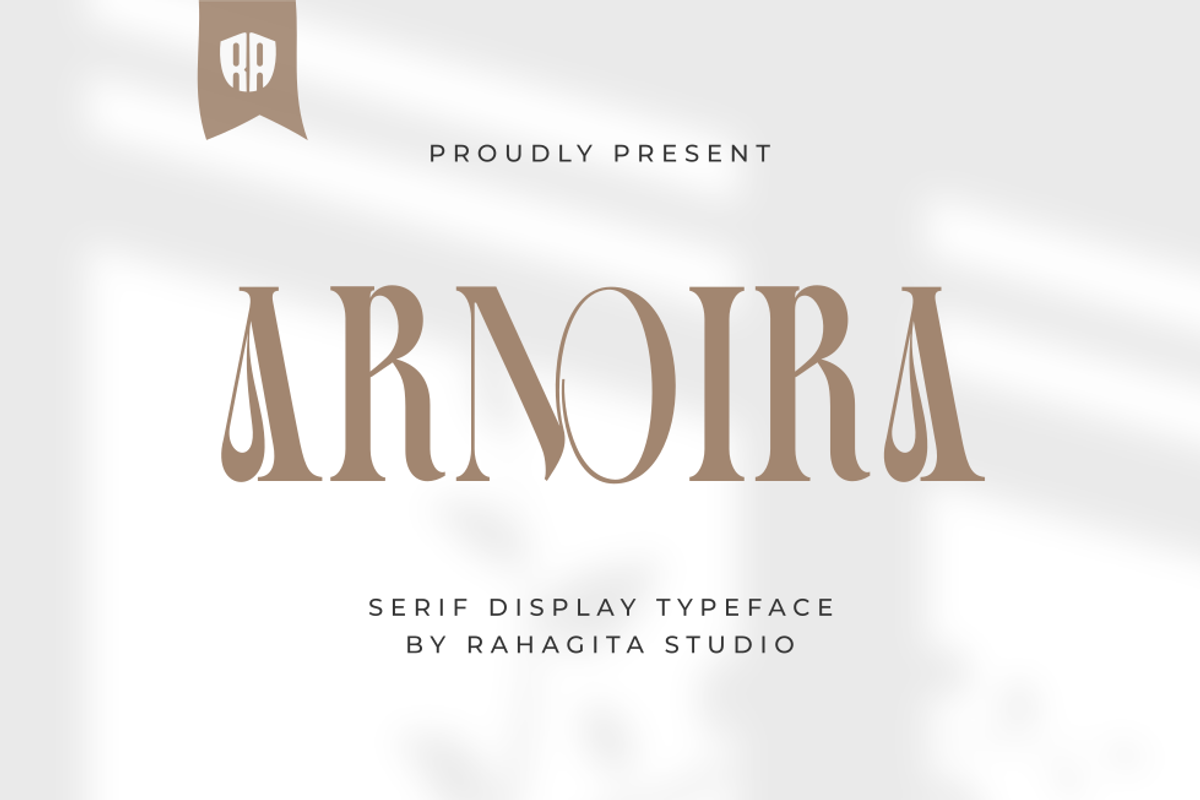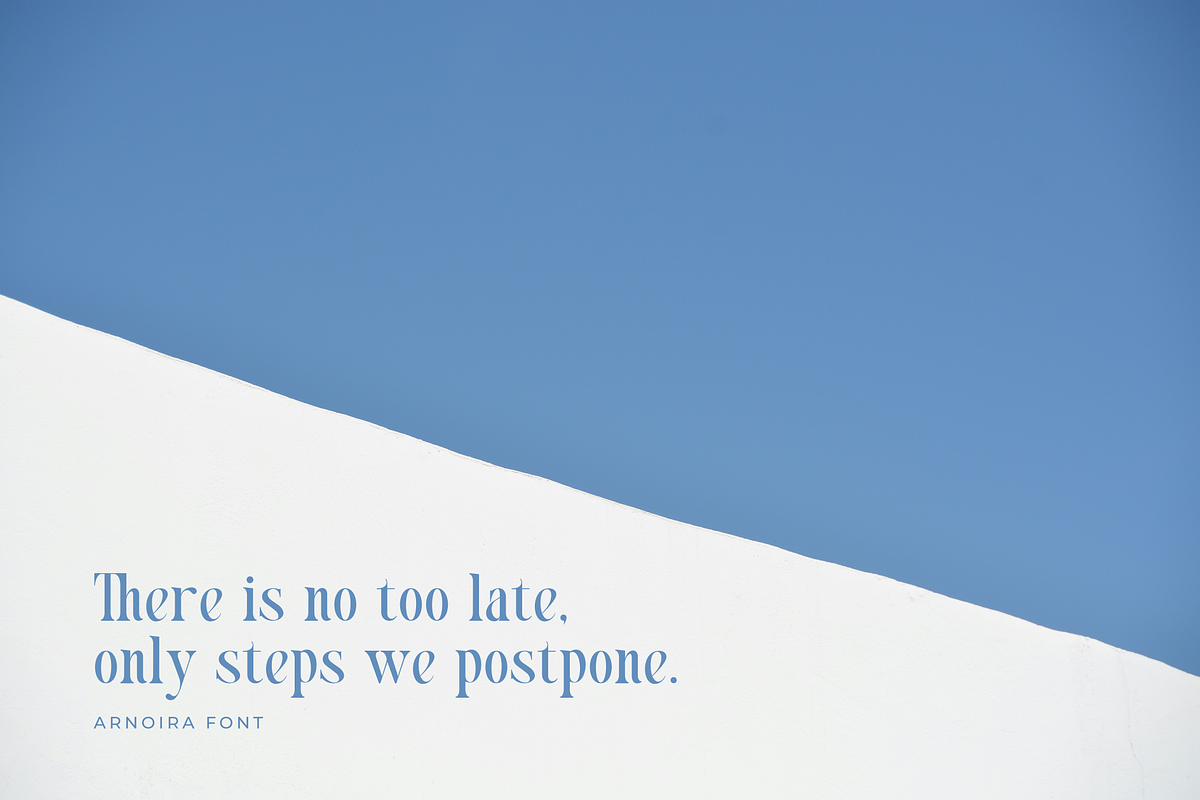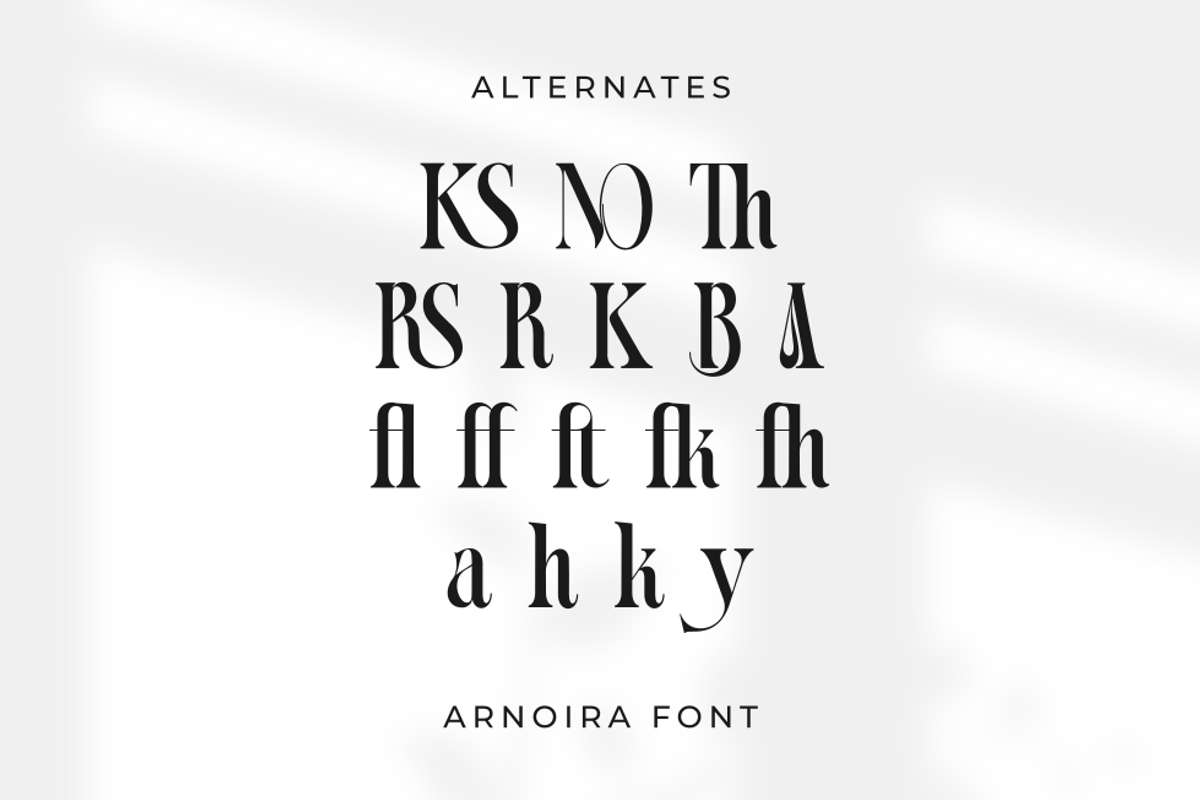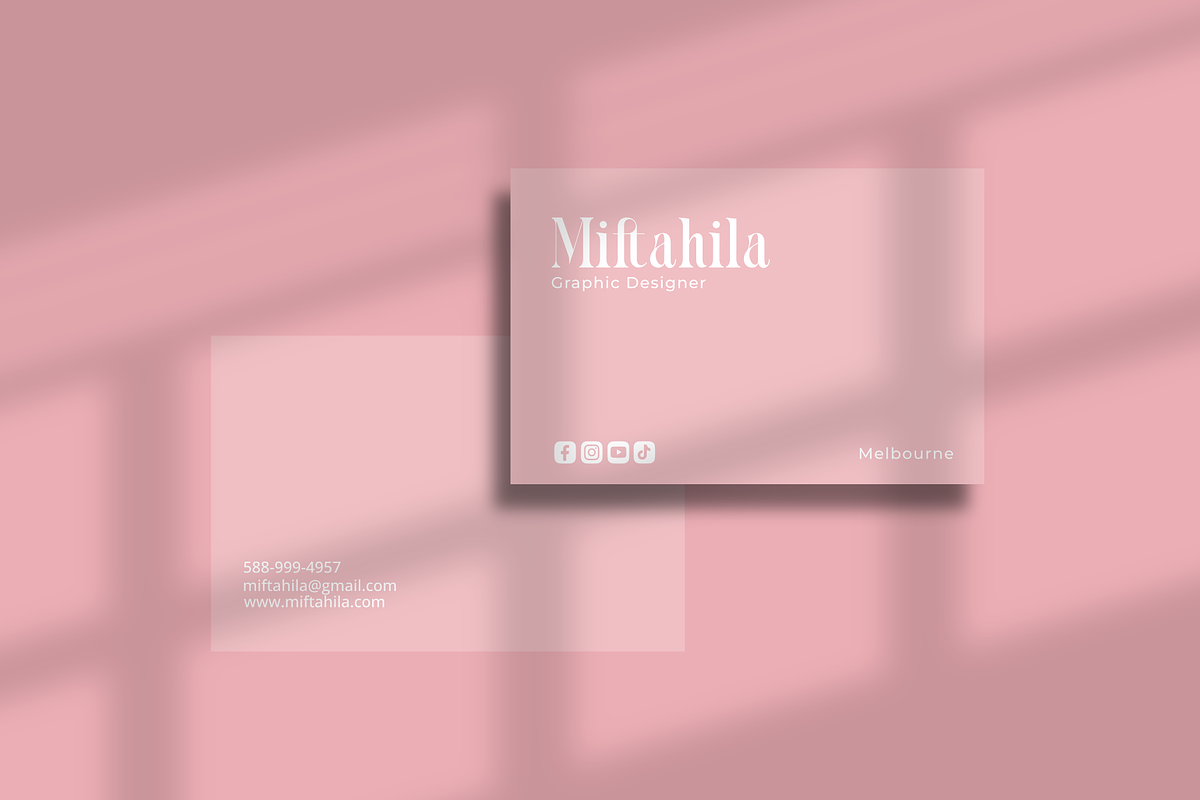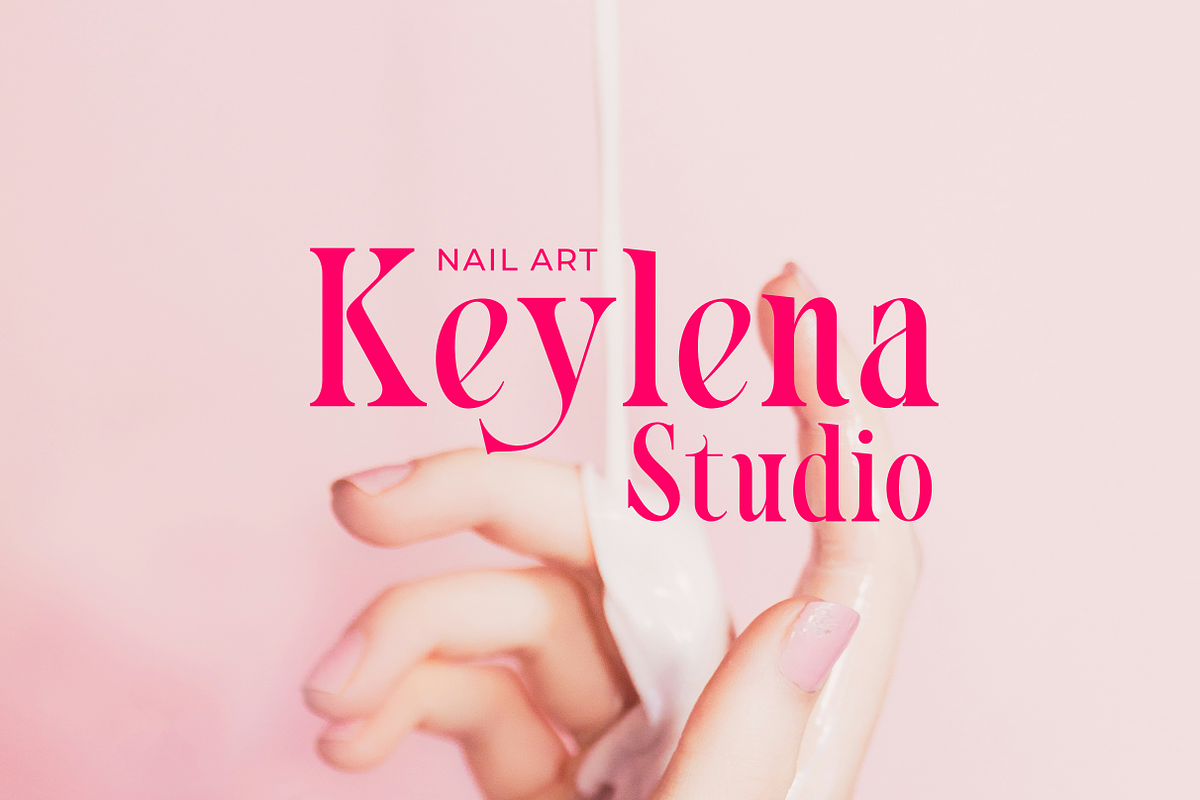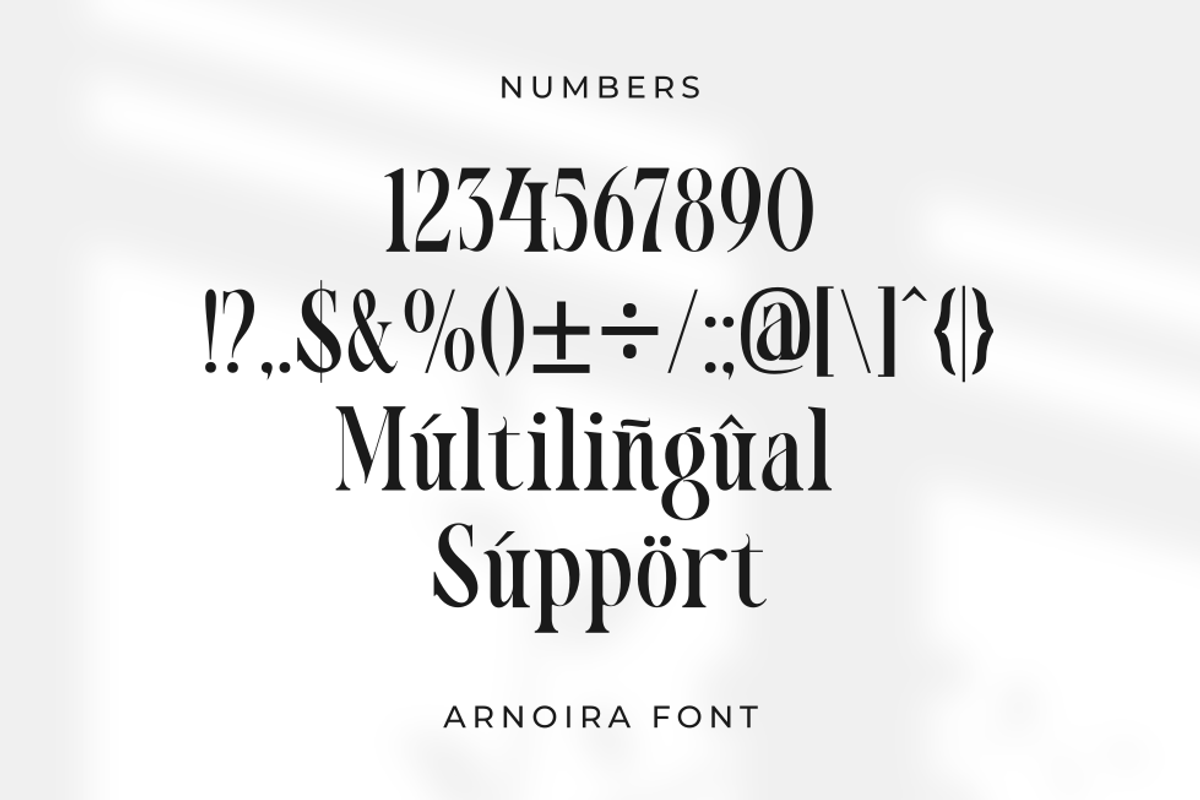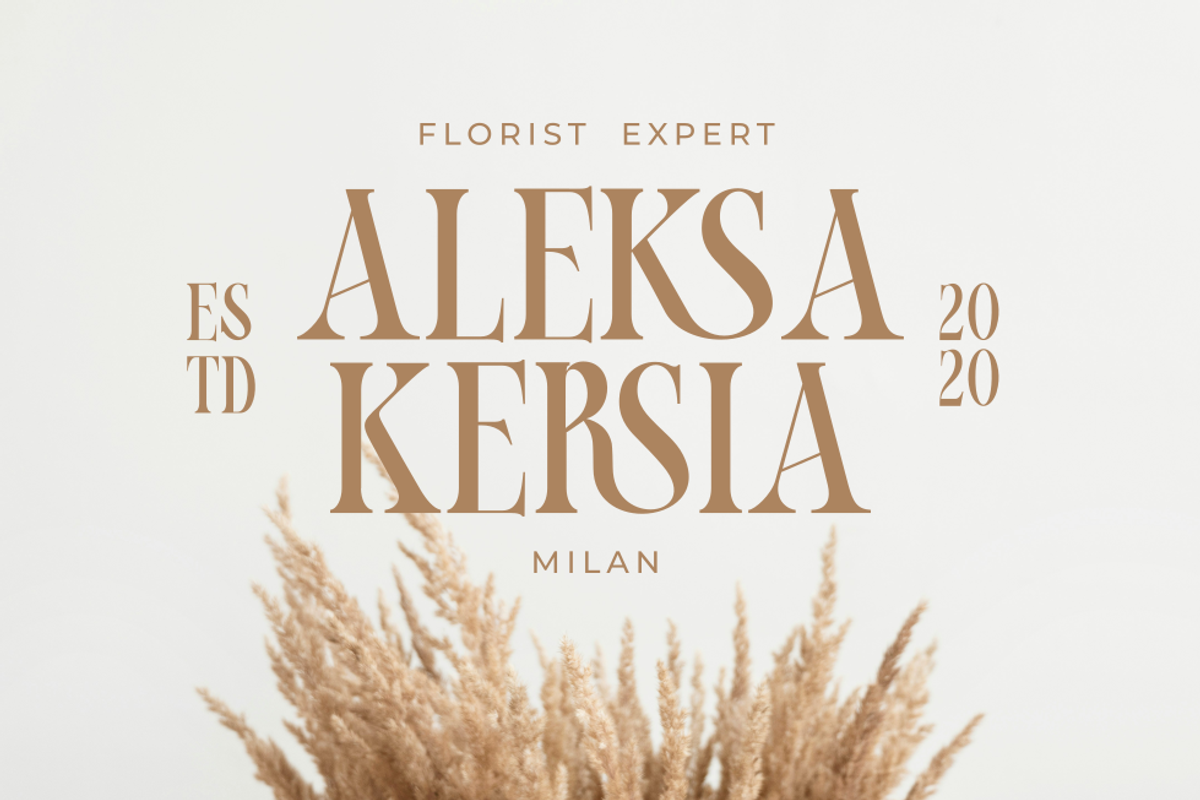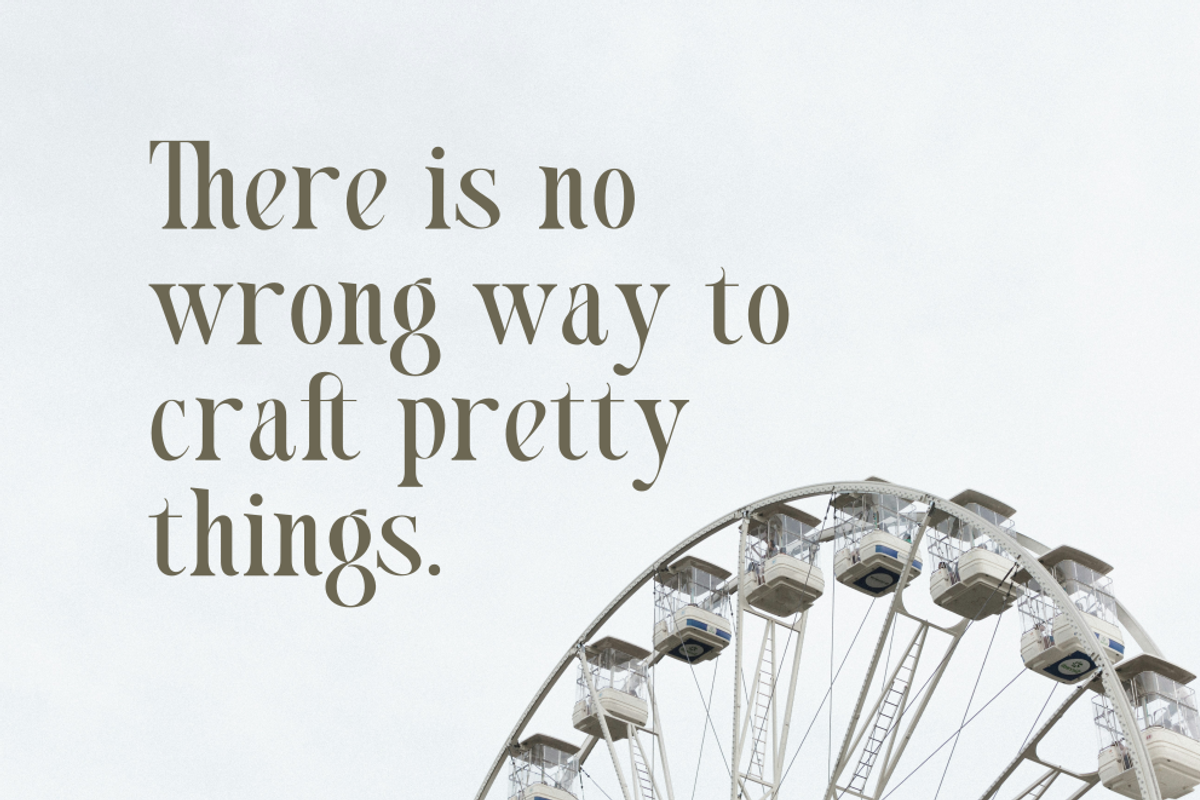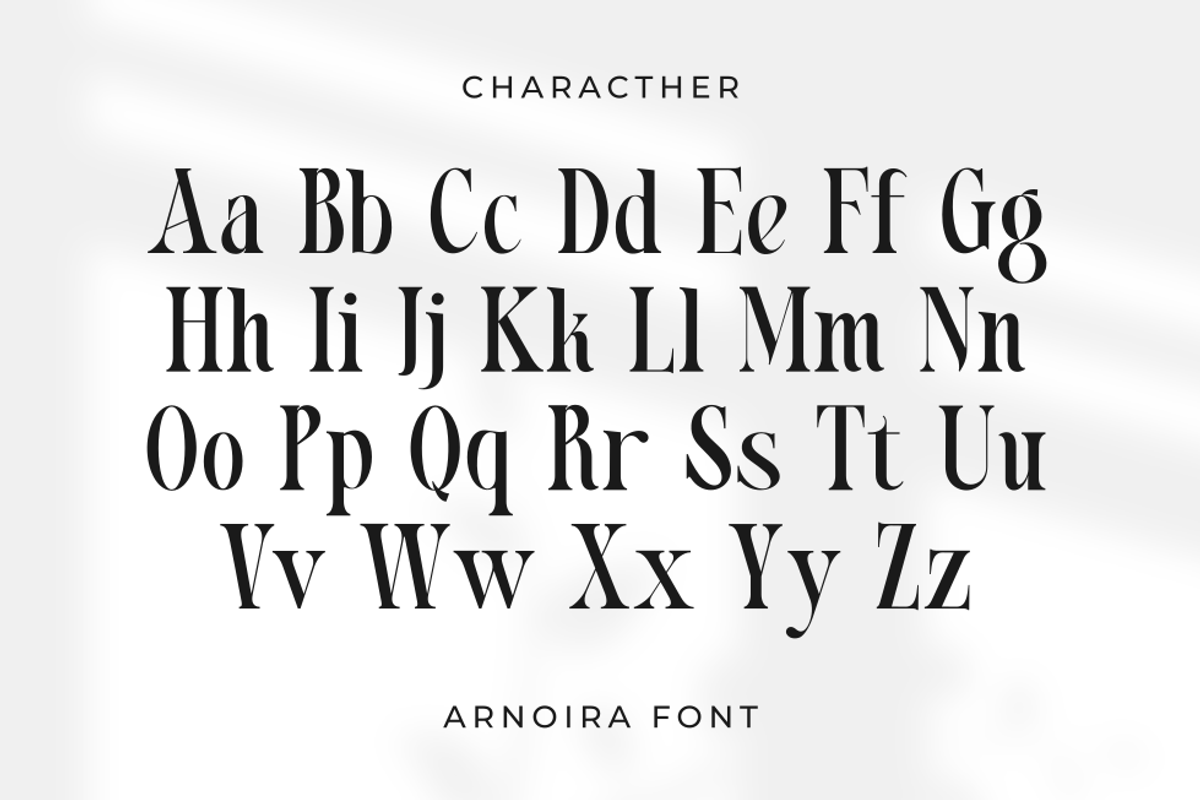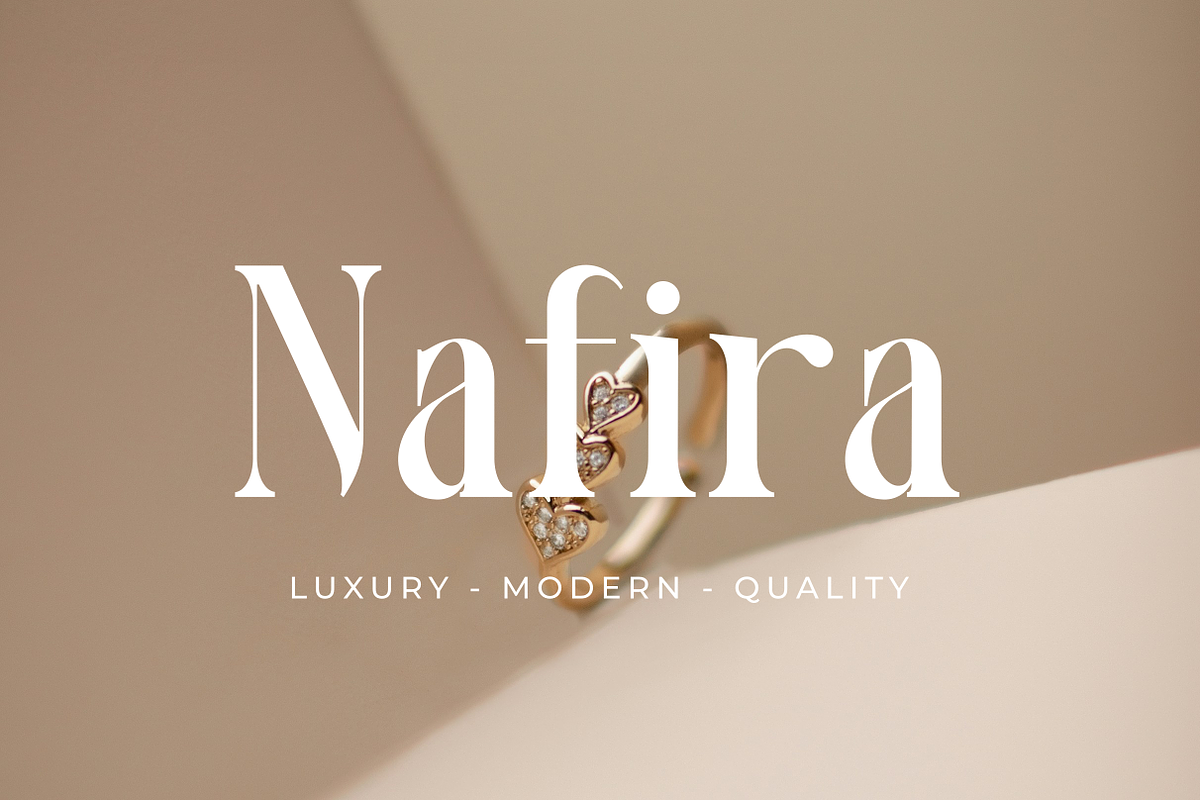
Arnoira
Arnoira is a luxurious serif display font that combines sophistication and modern aesthetics with classic beauty. Each letter is crafted with graceful curves, high contrast strokes, and stylish teardrop terminals that exude elegance and refinement. Perfect for branding, editorial design, fashion logos, invitations, and high-end packaging, Arnoira adds a touch of class and professionalism to every project. With alternates, ligatures, multilingual support, and complete punctuation, this typeface offers flexibility and timeless appeal for creative designers.